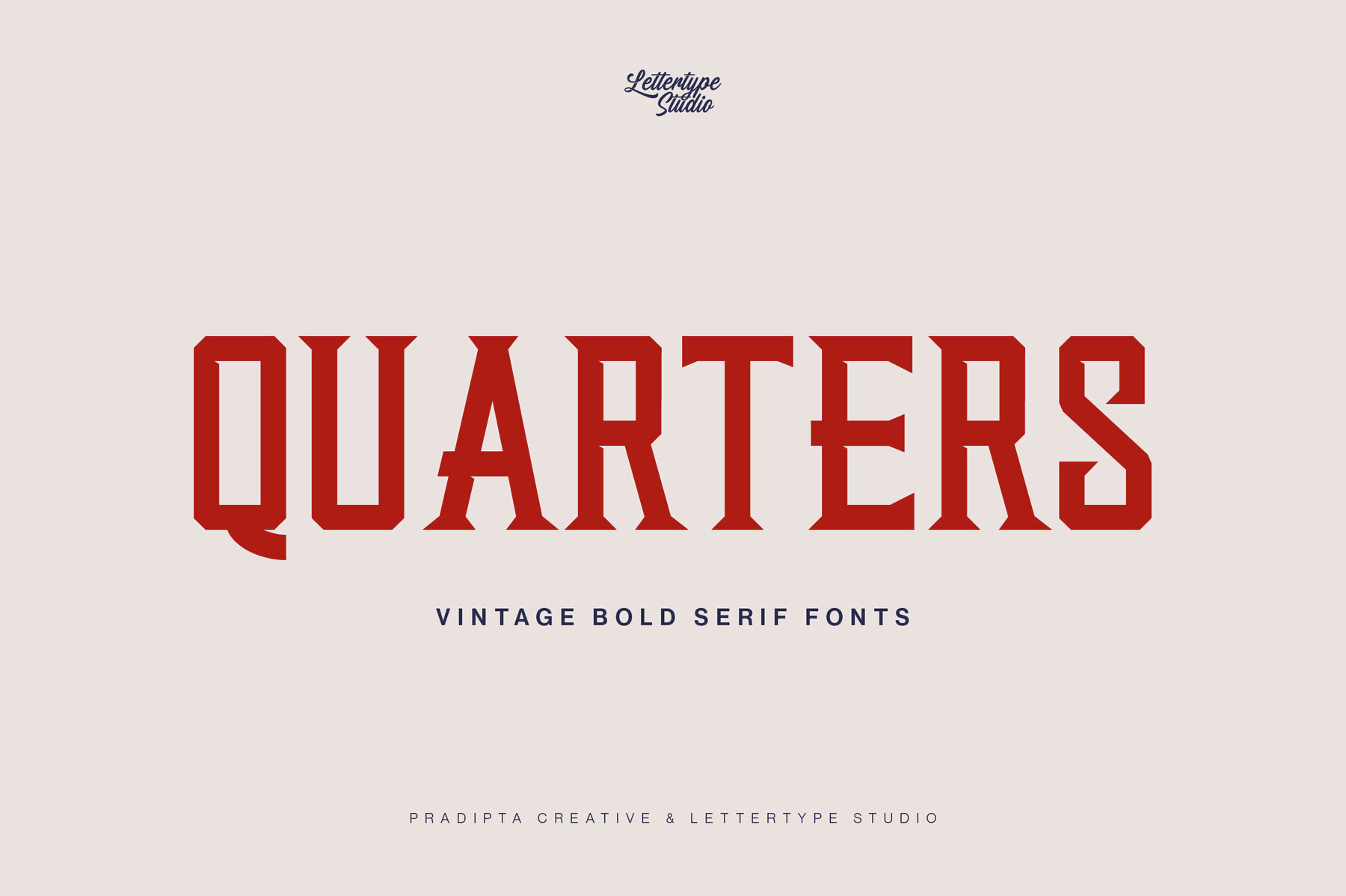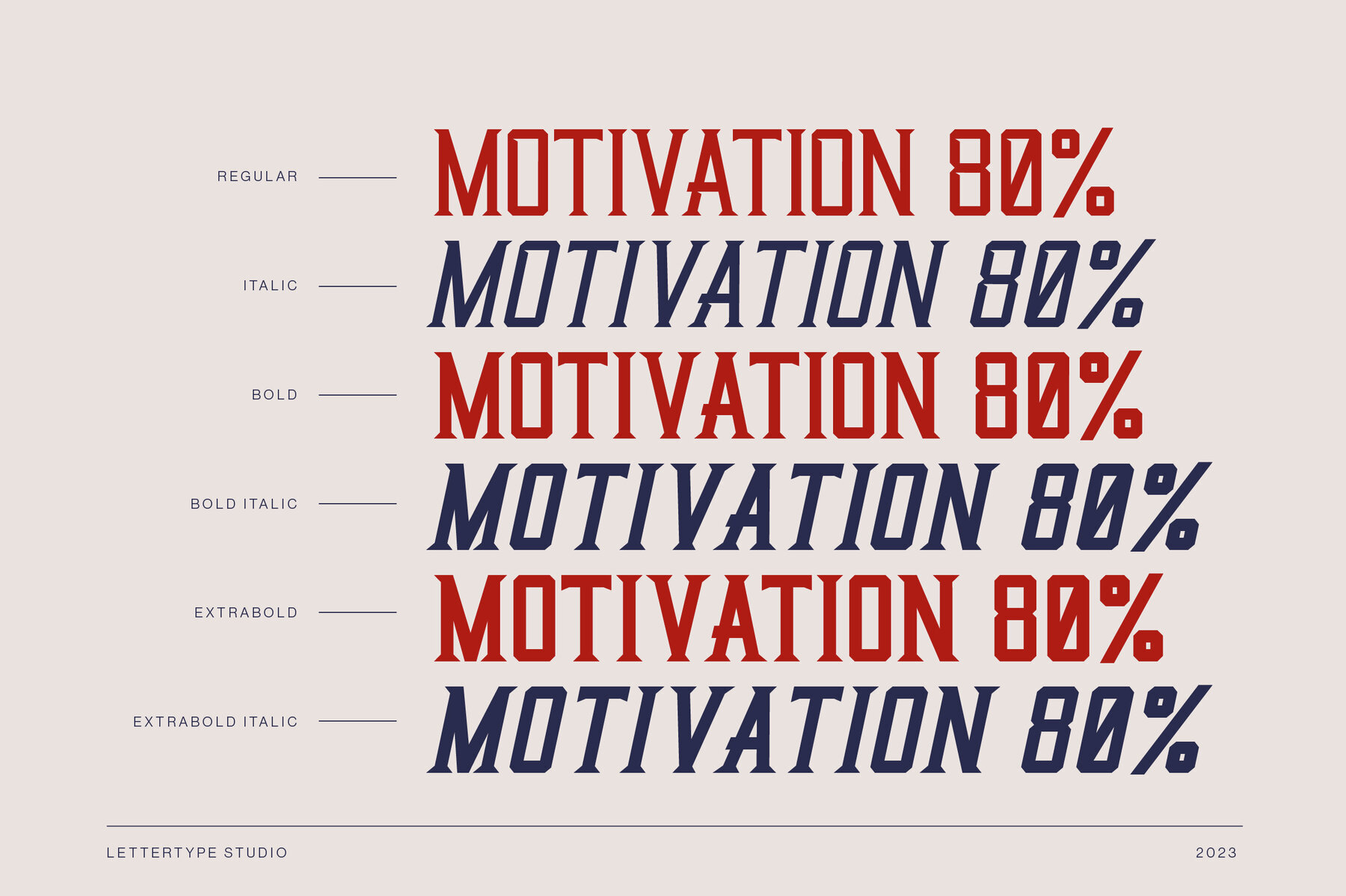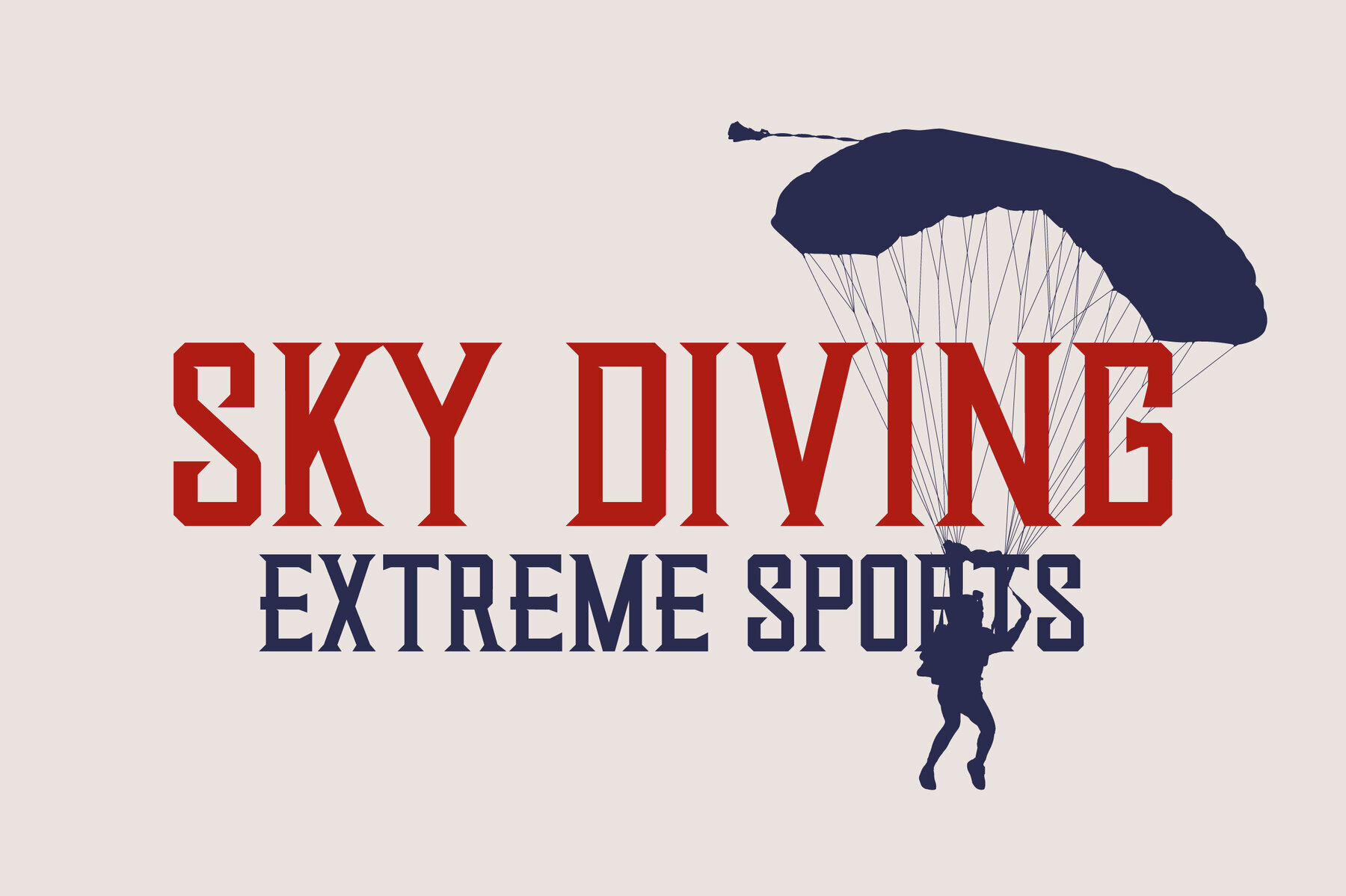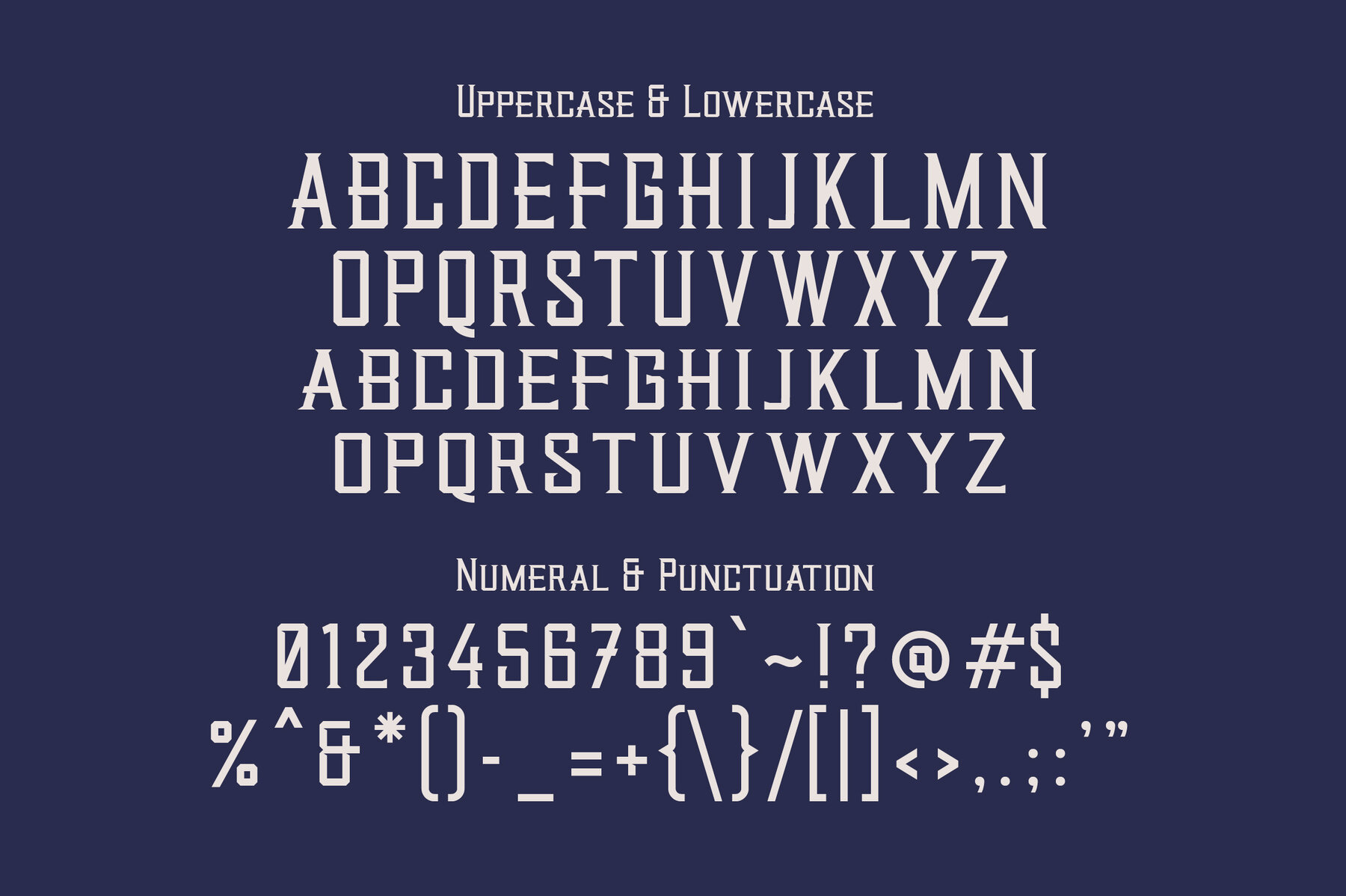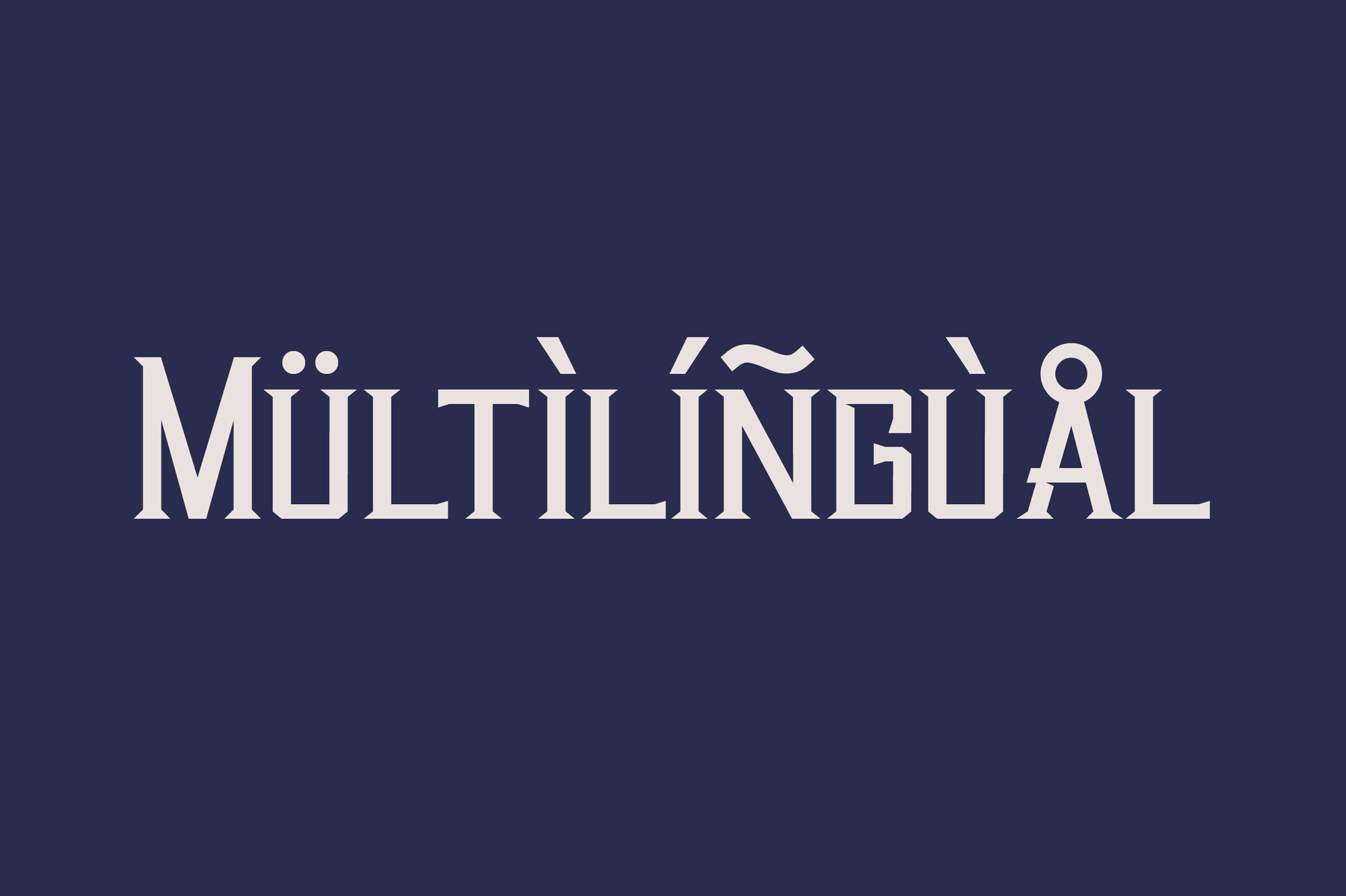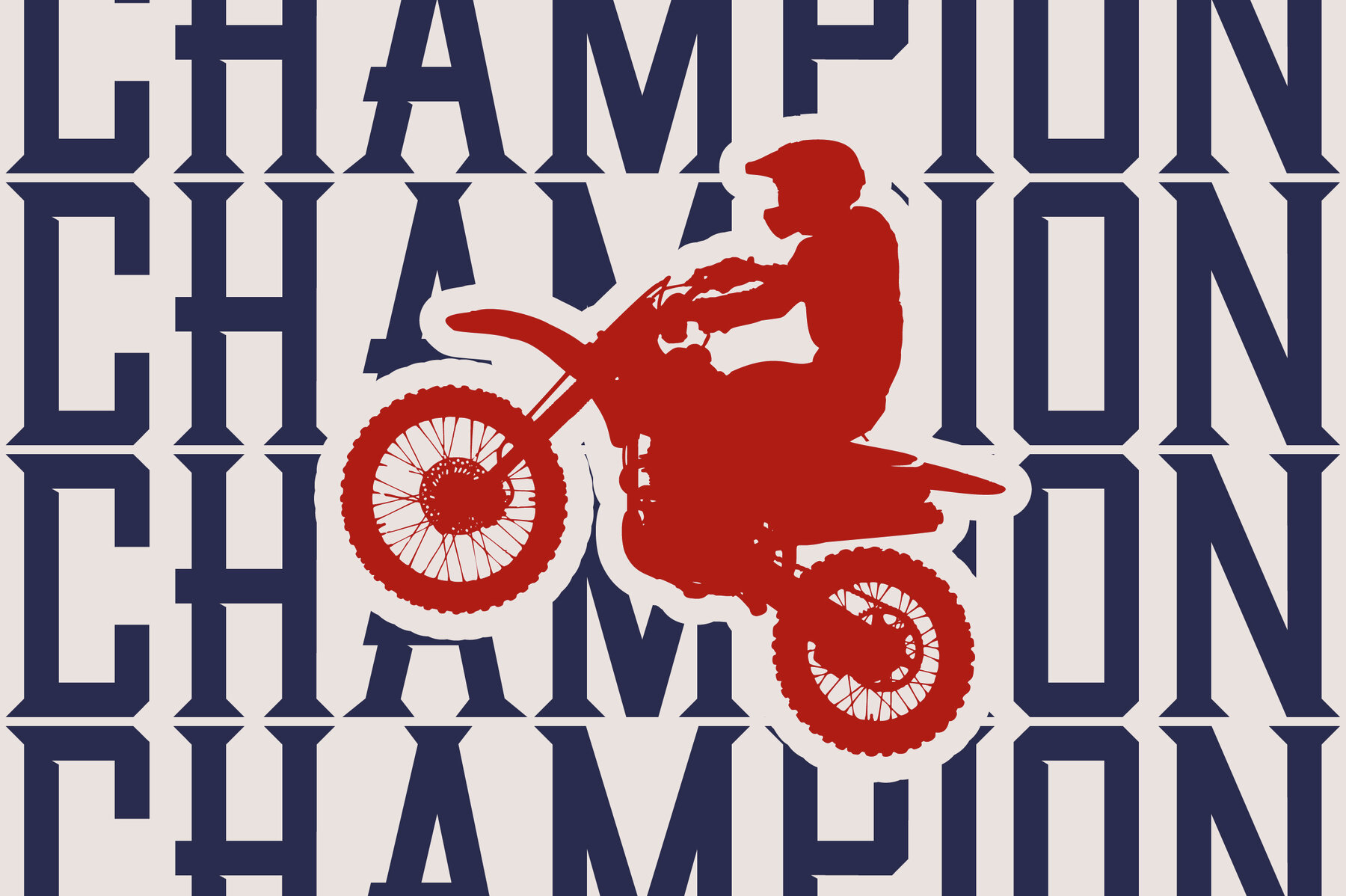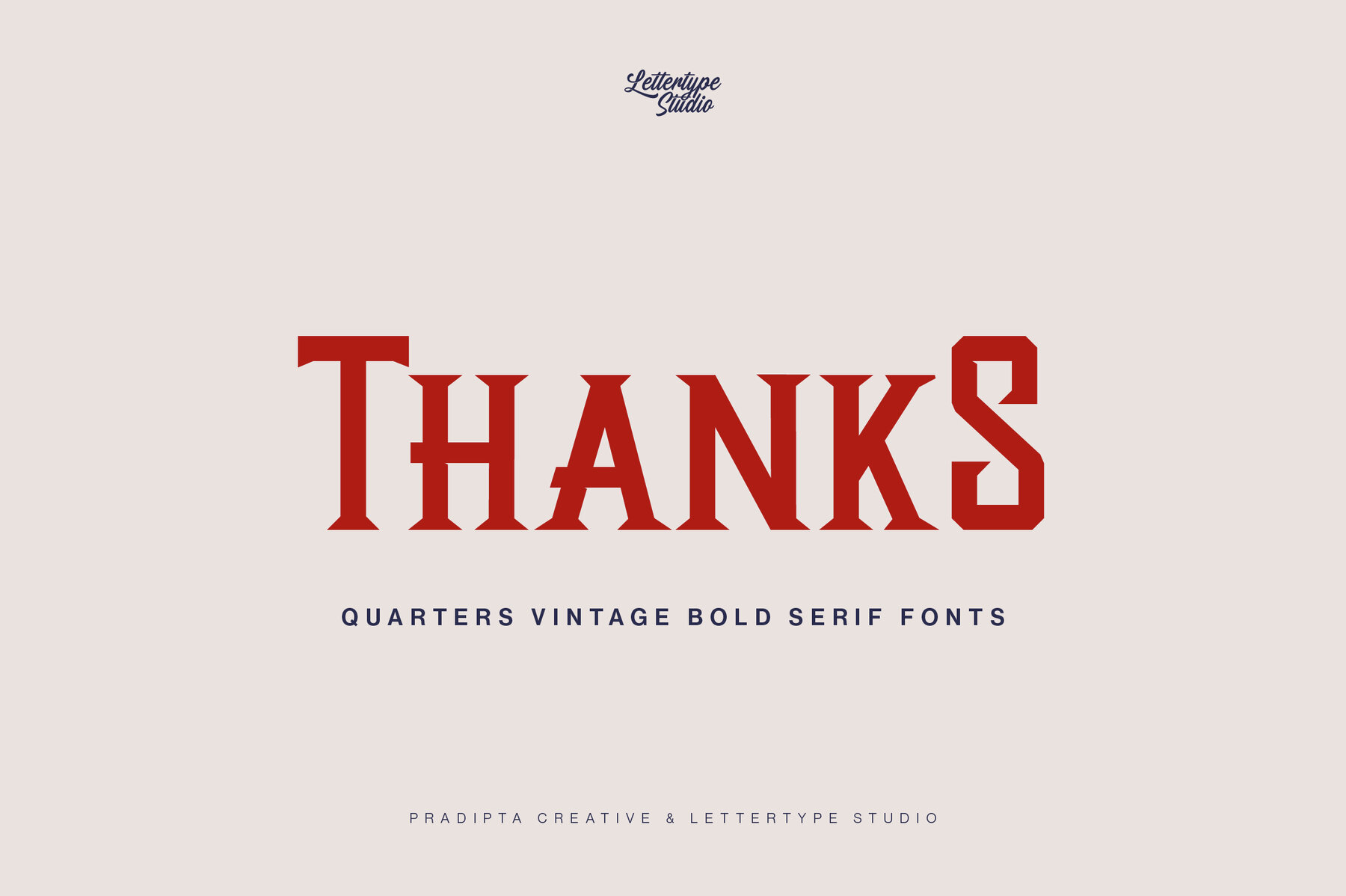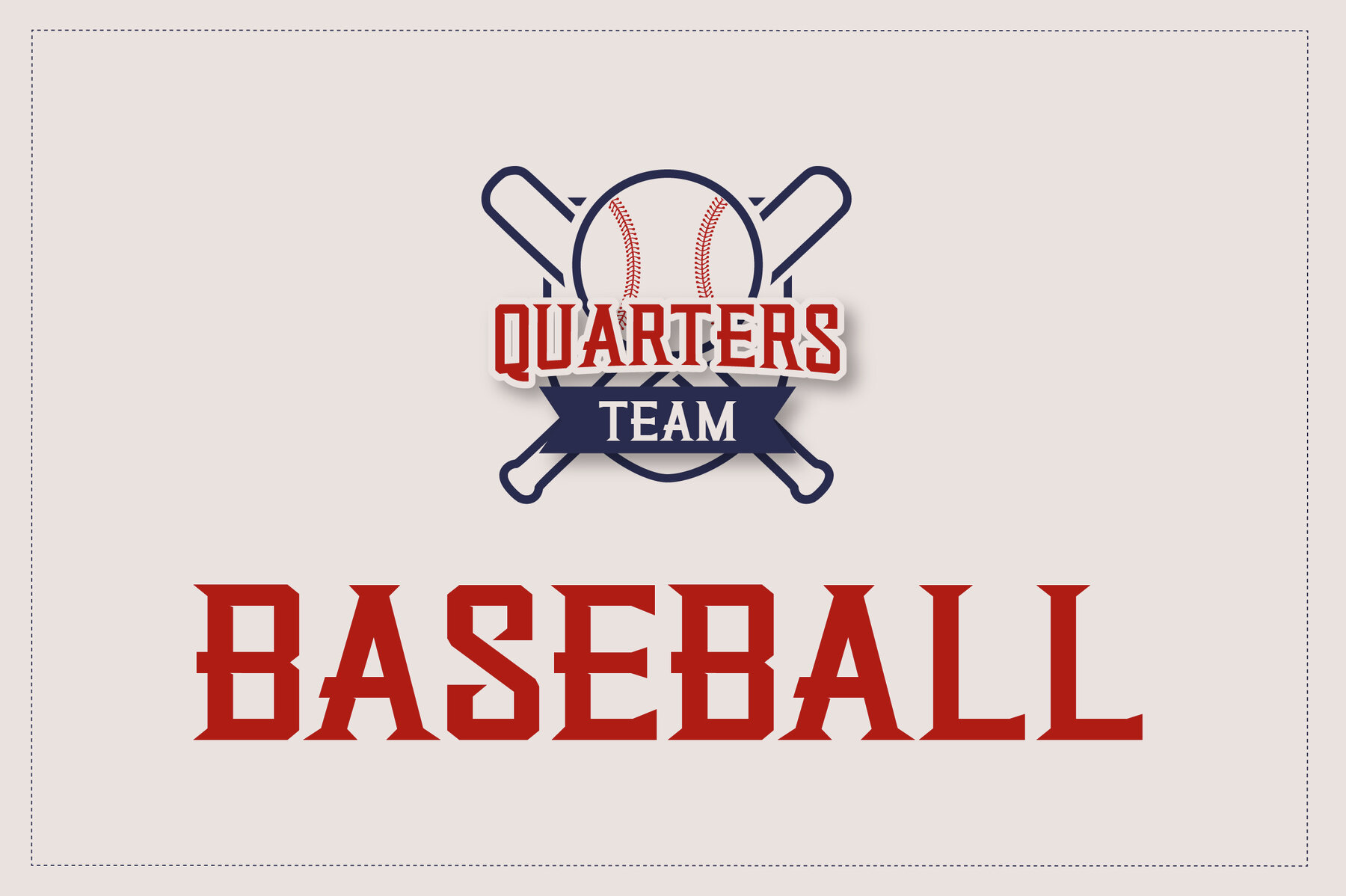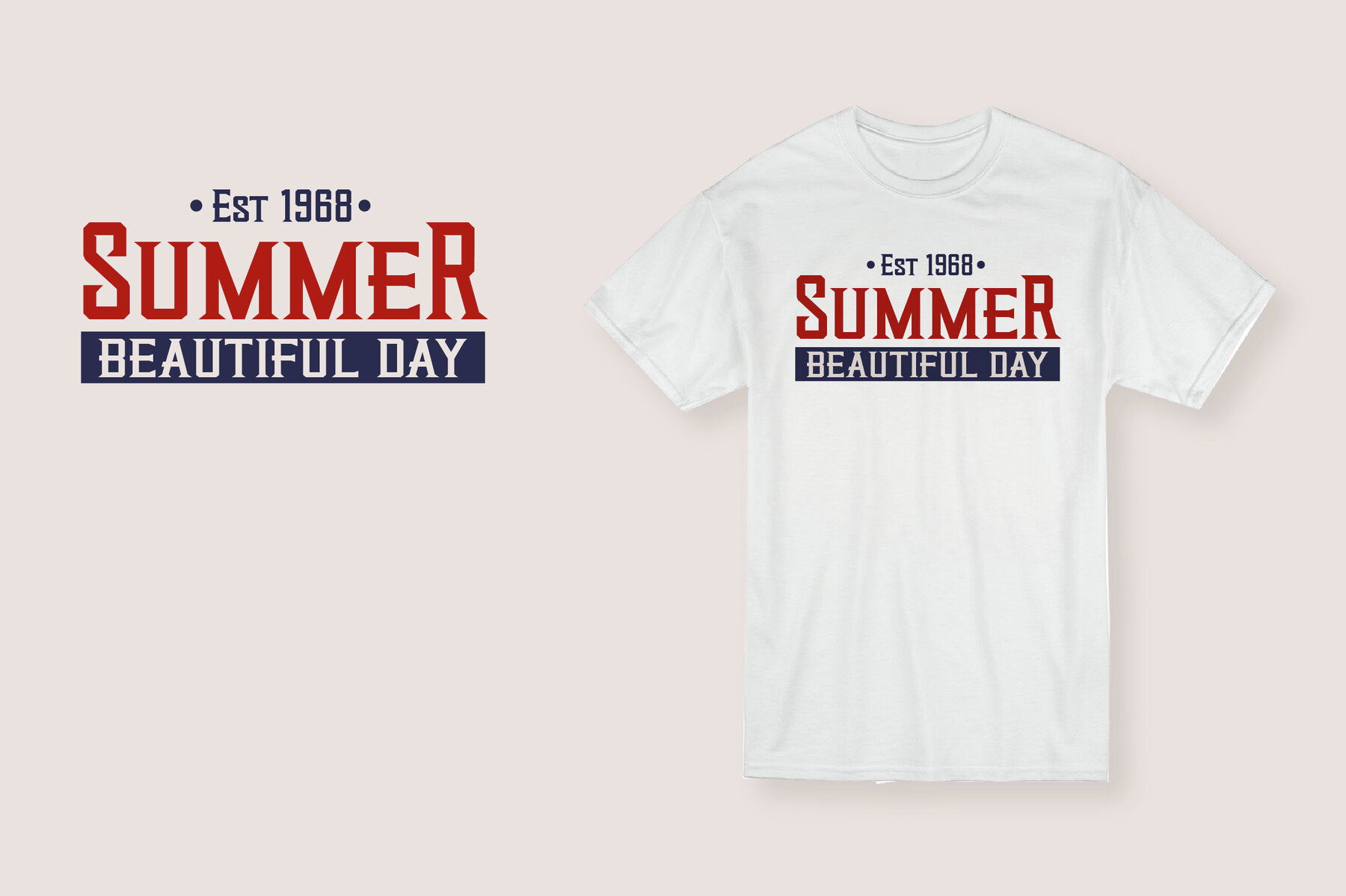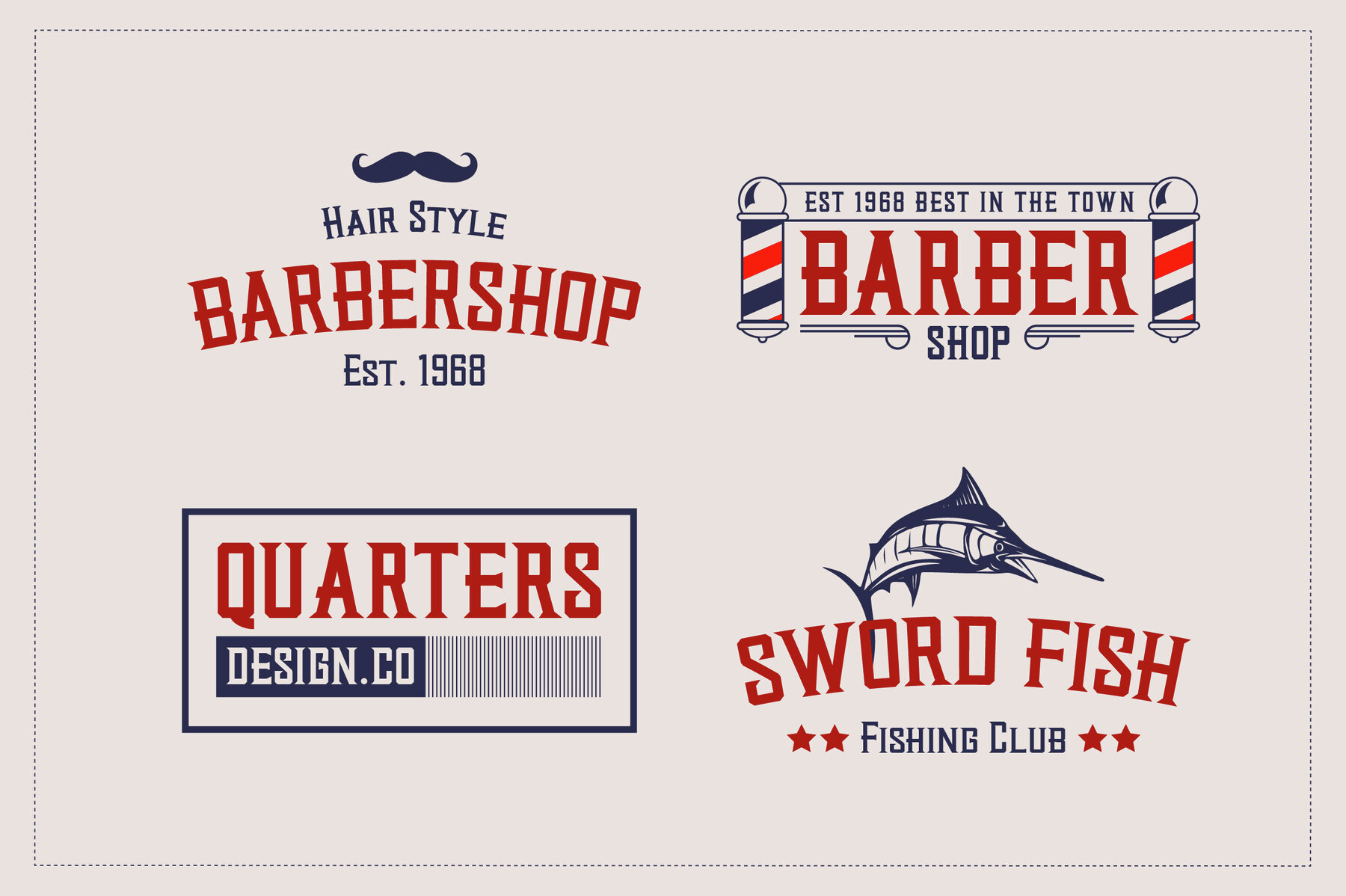
Quarters Font
Discover the essence of urban culture with Quarters, a vintage bold serif font that exudes character and confidence. Designed for versatility, Quarters is perfect for logo creations, branding projects, sports graphics, clothing lines, and editorial headlines. Its distinctive style is ideal for making a bold statement in any design project.Quarters by Lettertype Studio: Vintage Bold Serif Font